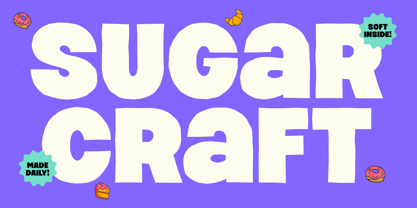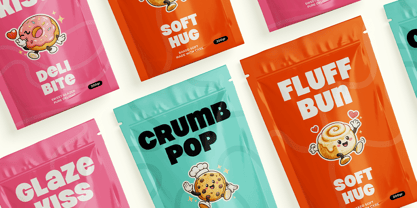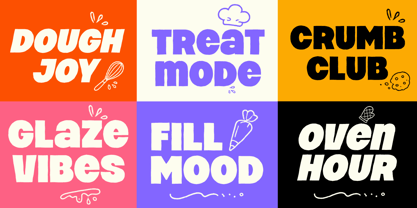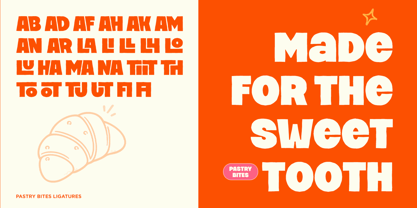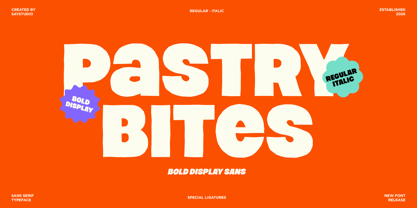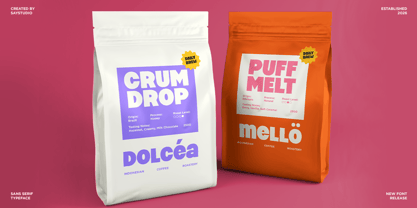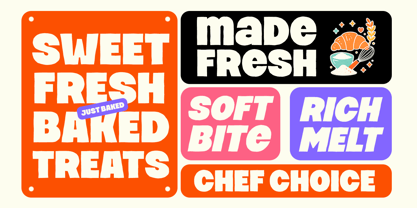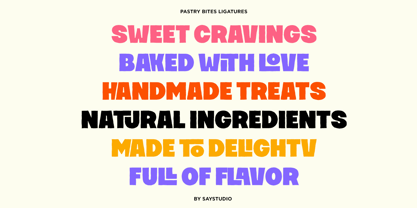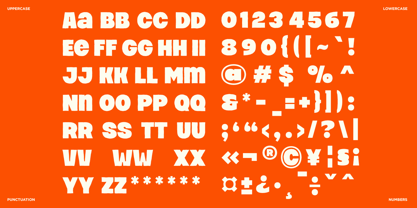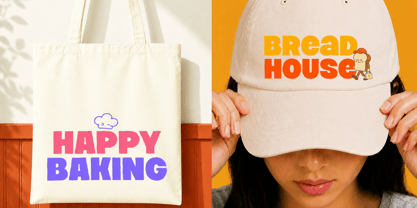
Pastry Bites
by Say Studio
The Pastry Bites Font Family was designed by Mussyayin and published by Say Studio. Pastry Bites contains 2 styles and family package options. More about this family
Pastry Bites is handwritten sans serif font is a bold and playful typeface inspired by the cheerful world of freshly baked treats, cozy bakeries, colorful food packaging, and sweet café branding. Its chunky letterforms, rounded shapes, and casual handwritten character create a fun and friendly personality that instantly makes designs feel more delicious and inviting.
Designed to make headlines stand out, Pastry Bites works beautifully for bakery logos, pastry packaging, dessert labels, café menus, food posters, restaurant branding, social media graphics, stickers, and product advertisements. Its energetic appearance is especially suitable for brands that want a youthful, approachable, and mouth-watering visual identity.
From cookie boxes and bread packaging to donut shops, candy brands, coffee shops, and homemade treats, Pastry Bites brings a warm handcrafted touch to every project. Use it for bold headlines, product names, promotional campaigns, packaging designs, or any creative project that needs a tasty and playful typographic personality.
Perfect for:
• Bakery & pastry branding
• Food & beverage packaging
• Café & restaurant logos
• Dessert & snack labels
• Menu designs
• Food posters & advertisements
• Social media graphics
• Stickers & merchandise
• Product branding
• Headlines & display typography
Font Features:
• Regular and Italic
• Stylistic Ligature
• Uppercase and lowercase
• Number, Symbol, and Punctuation
• Multilingual Support
Designers: Mussyayin
Foundry: Say Studio